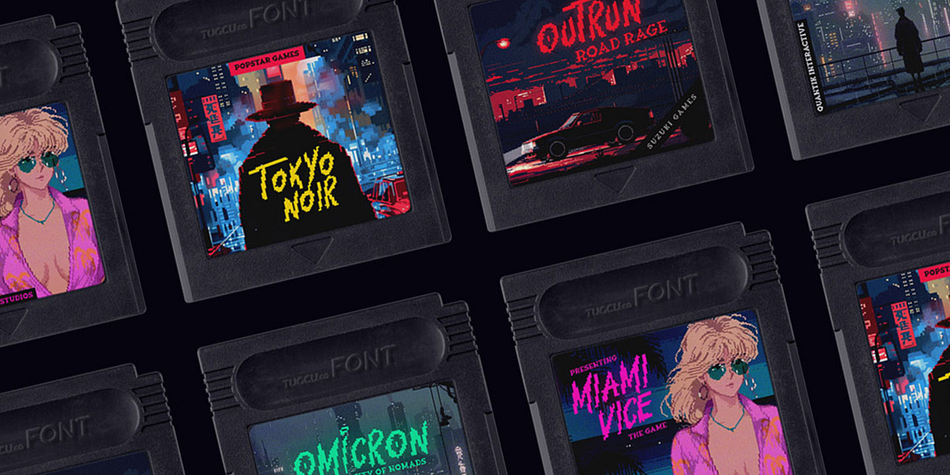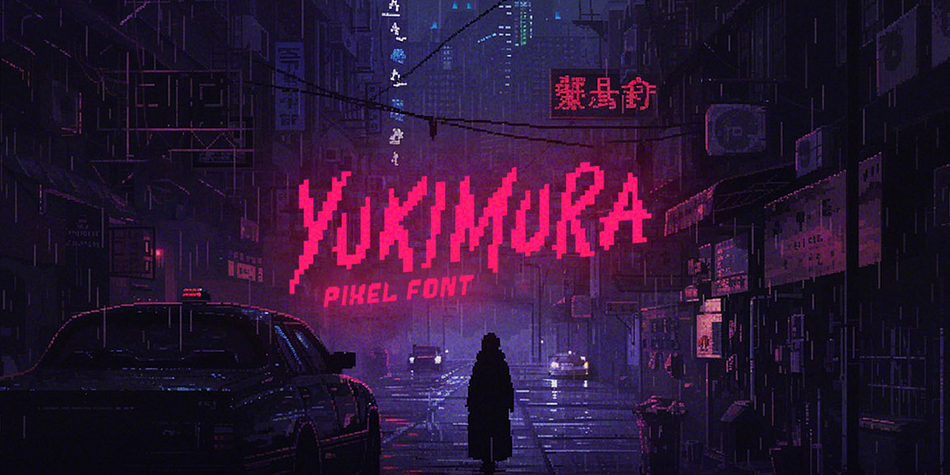
Yukimura
Yukimura is a pixel font family published by Tugcu Design Co.
Yukimura is a pixel brush font with alternates that can be toggled via Caps Lock.